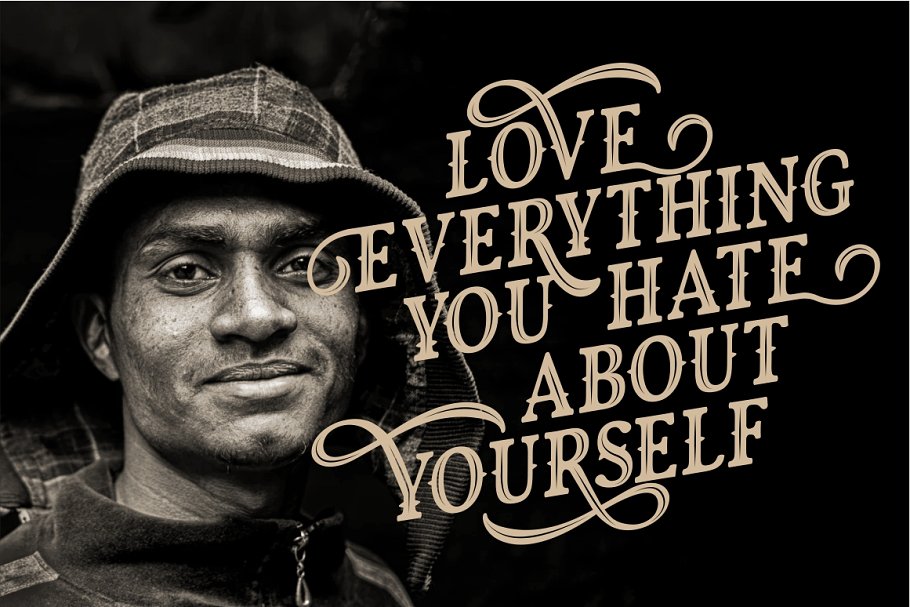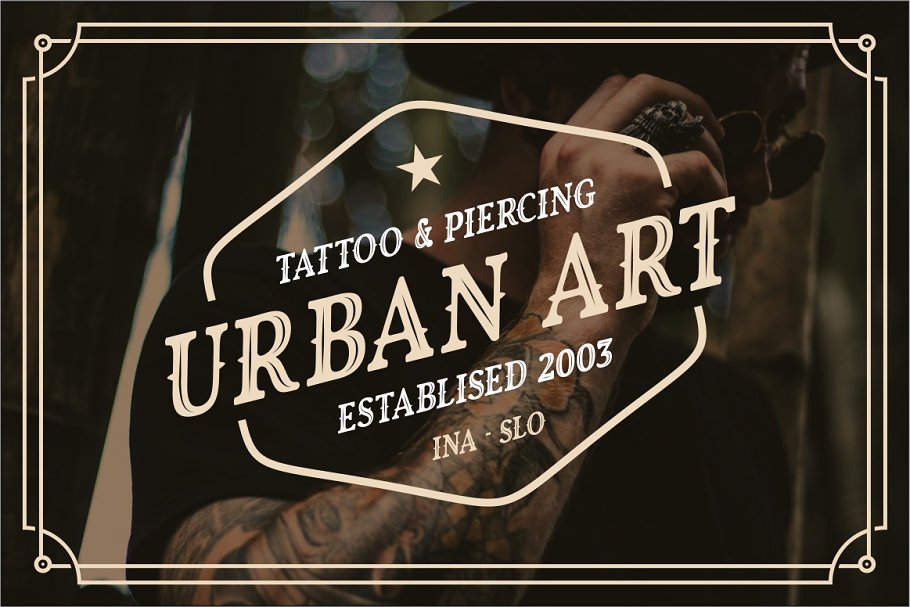
About the Royal King Font
Come up with decorative and clean style, ROYAL KING is great for any kind of display purpose from logos, Tshirt, apparel, quote, handwritten quotes, product packaging, tittle header, poster, merchandise, social media, labels, branding & greeting cards